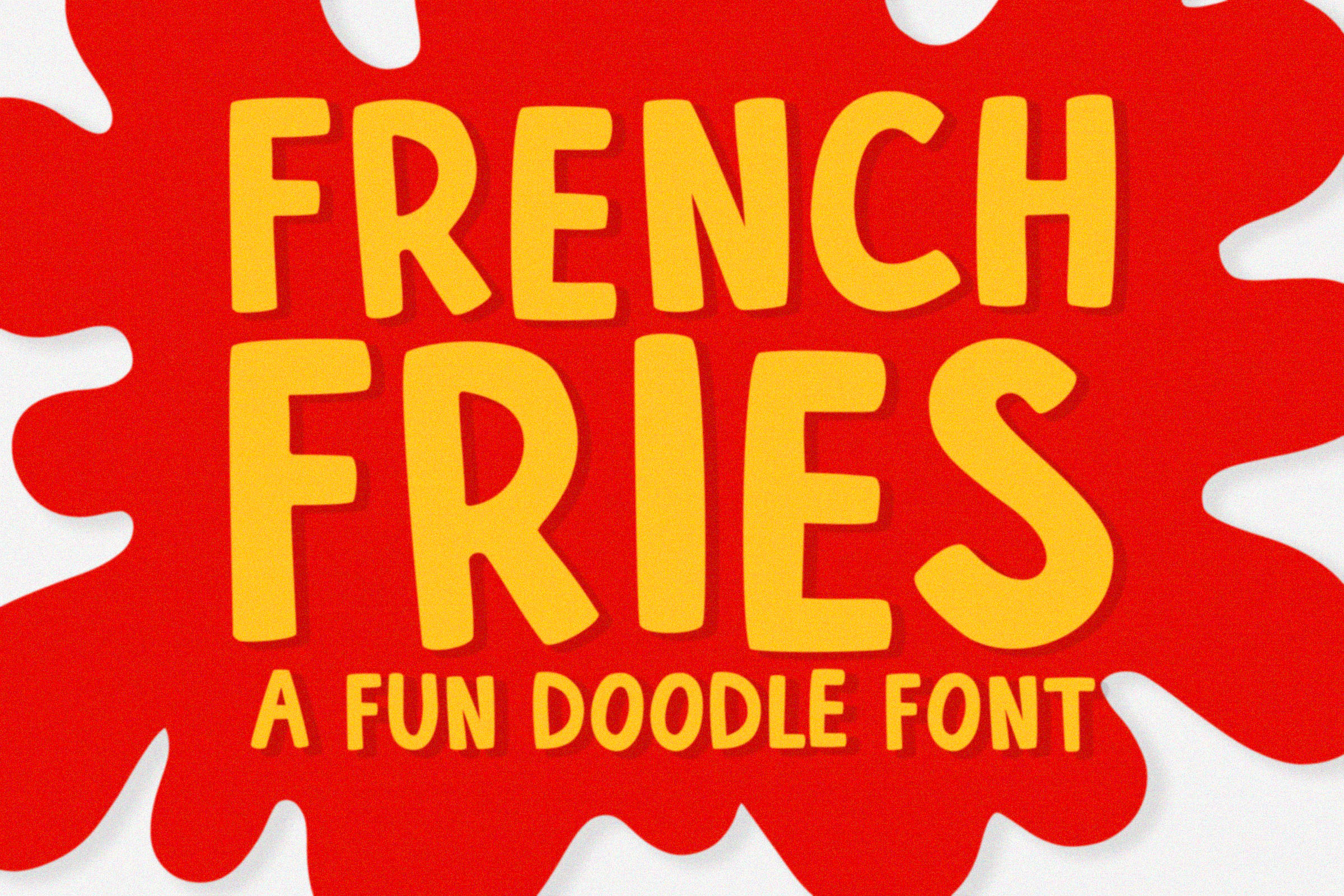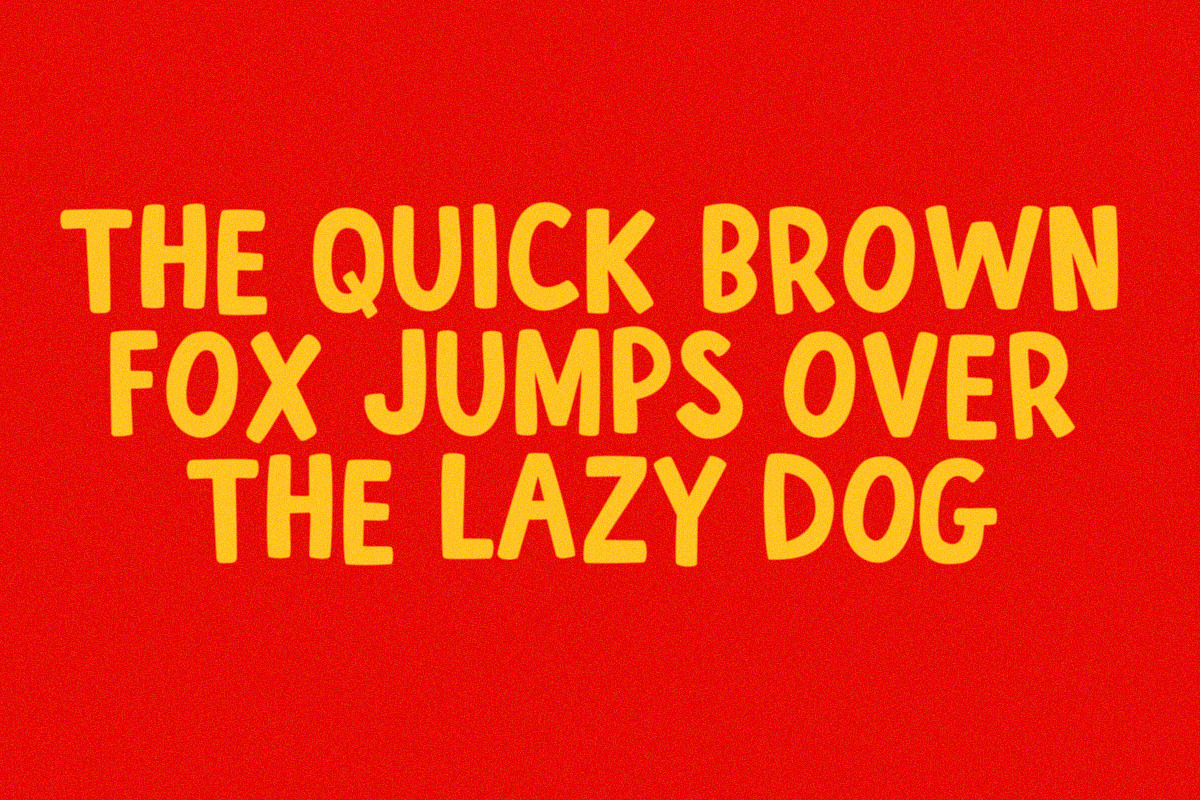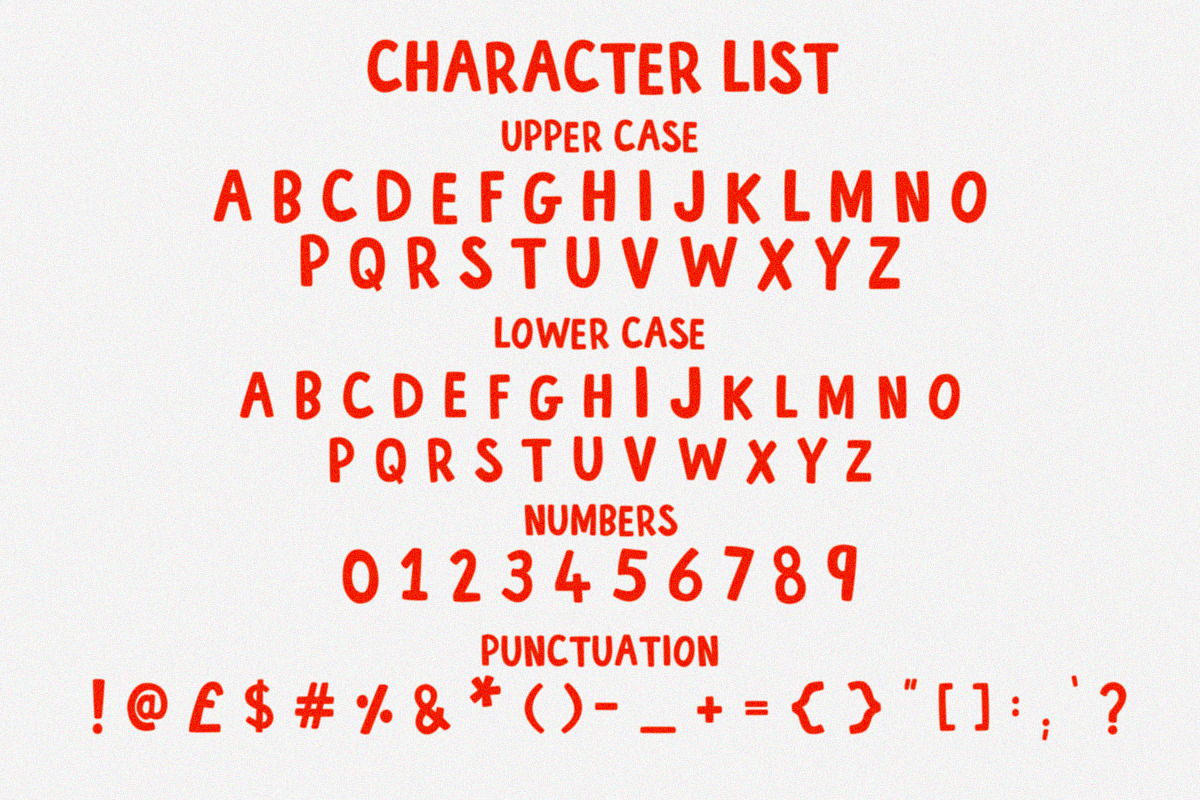
French Fries - A Fun Doodley Font
French Fries is an all caps bold doodley typeface perfect for any fun quirky design work! This font can be used for anything such as T-Shirt designs, phone cases, greeting cards, invitations, mugs and so much more! Get creative!
I love that I can use this font in memes and in graphic design on my tees and it’s not overkill but just right.
This was a fun font ideal for a little side project helping my daughter create a logo for her club. I have a number of fonts like this but French Fries made the cut as it had a bit more personality. Good job on the promo graphics too, this came up in a search for hand drawn fonts and I just had to investigate!